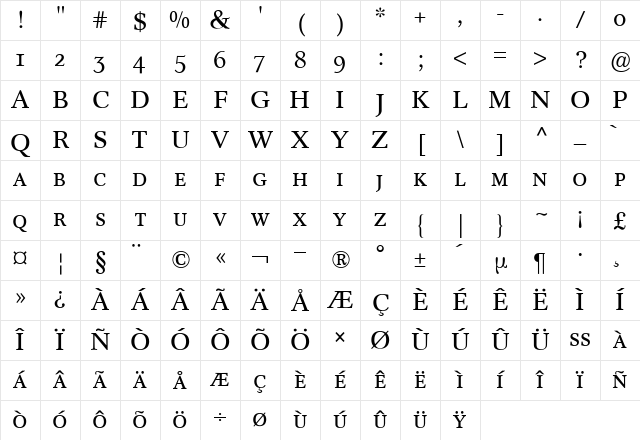
Concorde Expert BQ Regular
Design Context for Concorde Expert BQ
Concorde Expert BQ is a composed and adaptable typeface that performs quietly and consistently across a wide range of design contexts.
Pro Tip: Use Concorde Expert BQ in both headline and body roles to test its range before committing to a single application.
Who designed the Concorde Expert BQ Regular font?
This font was published by COPYRIGHT H. BERTHOLD AG Alle Rechte vorbehalten. Check the technical specs section for copyright and designer details.